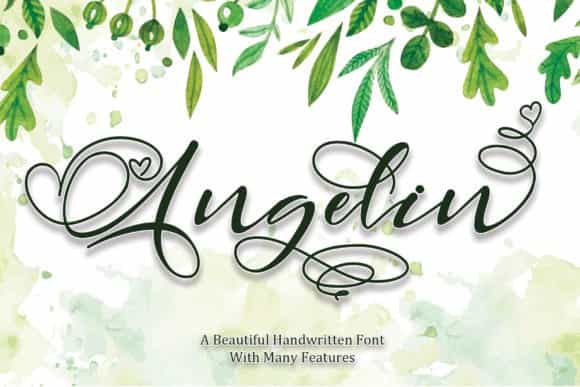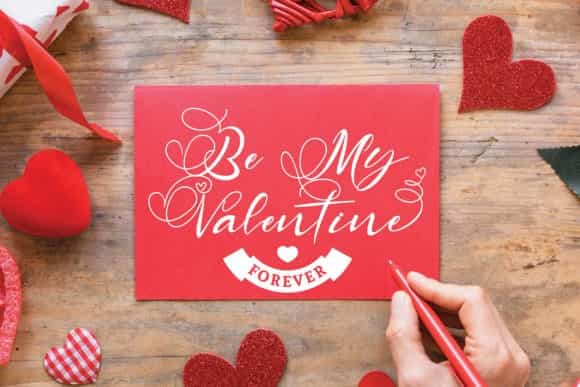
Angelin is a modern script font that has been created with every single letter being carefully crafted so that your text looks beautiful. With modern script style this font will perfect for many different project, example: Invitations, greeting cards, posters, name card, quotes. blog header and branding among other things are my specialization.